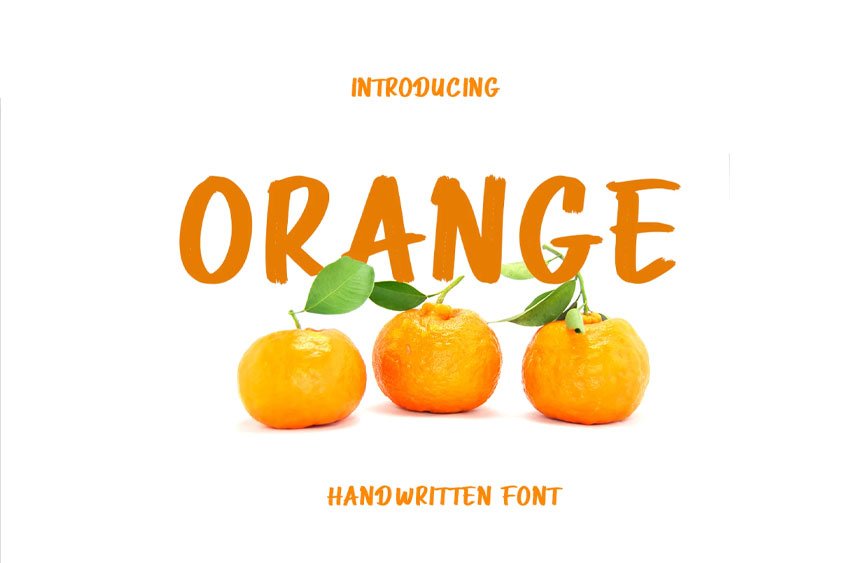
Orange Font is Brush Handwritten Font from Drizy studio. Offering all the basic styles you will need for a successful project.
Orange Features:
Uppercase & Lowercase Numeral & Punctuation Multilingual Ligatures